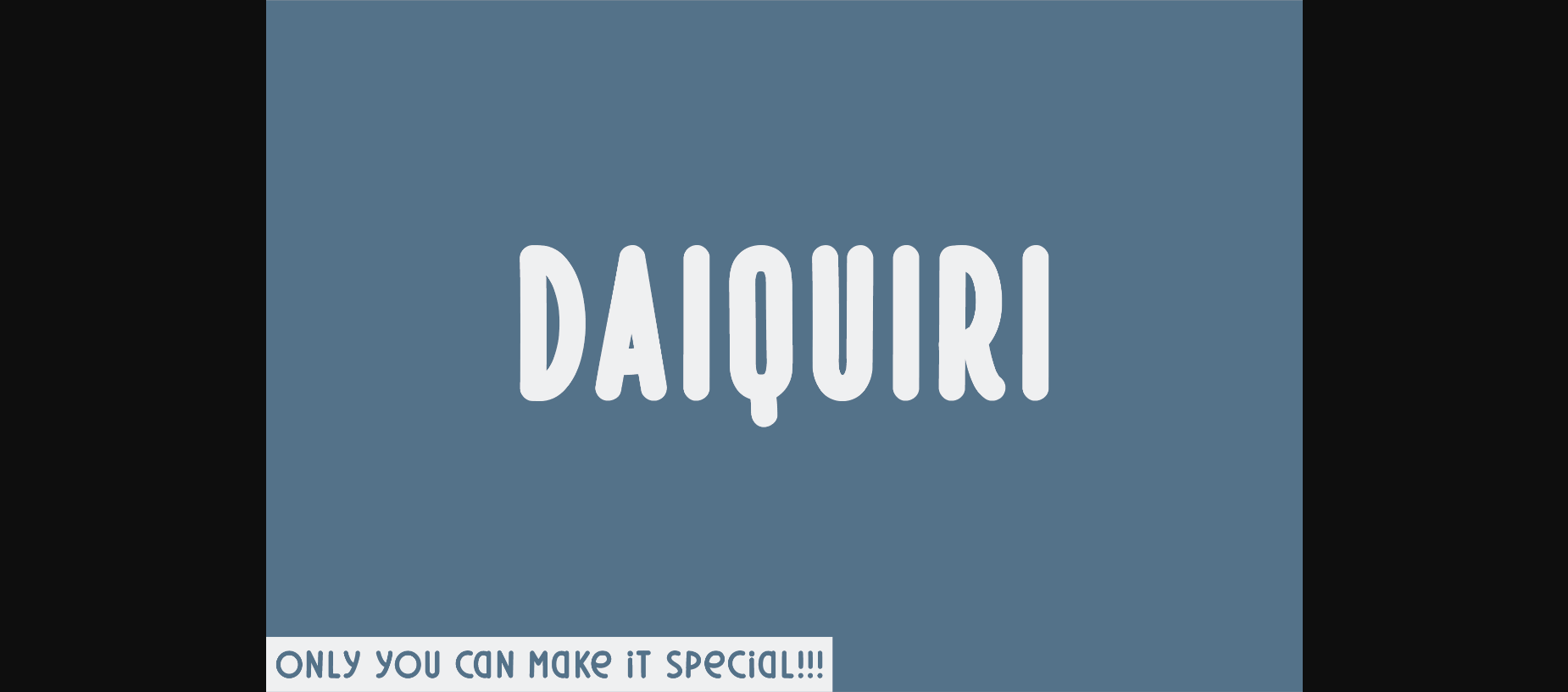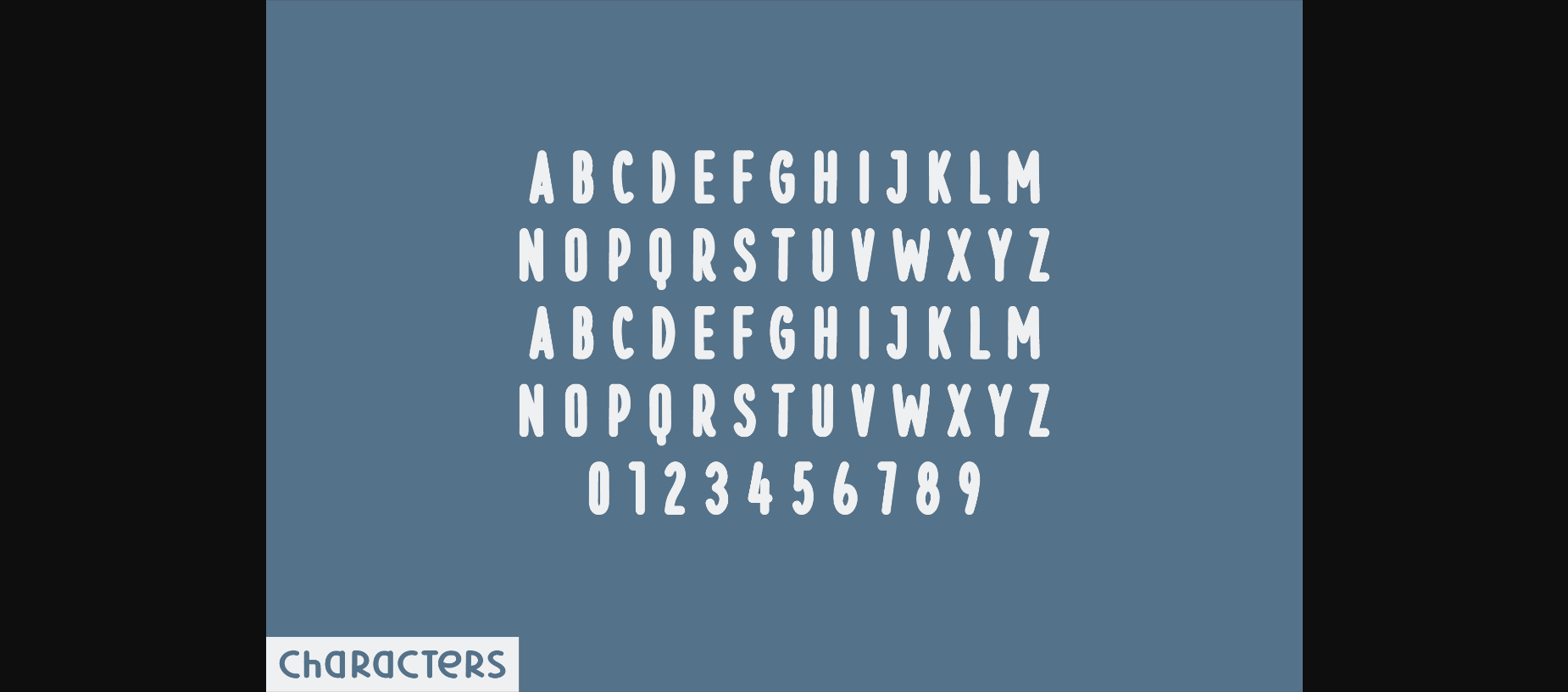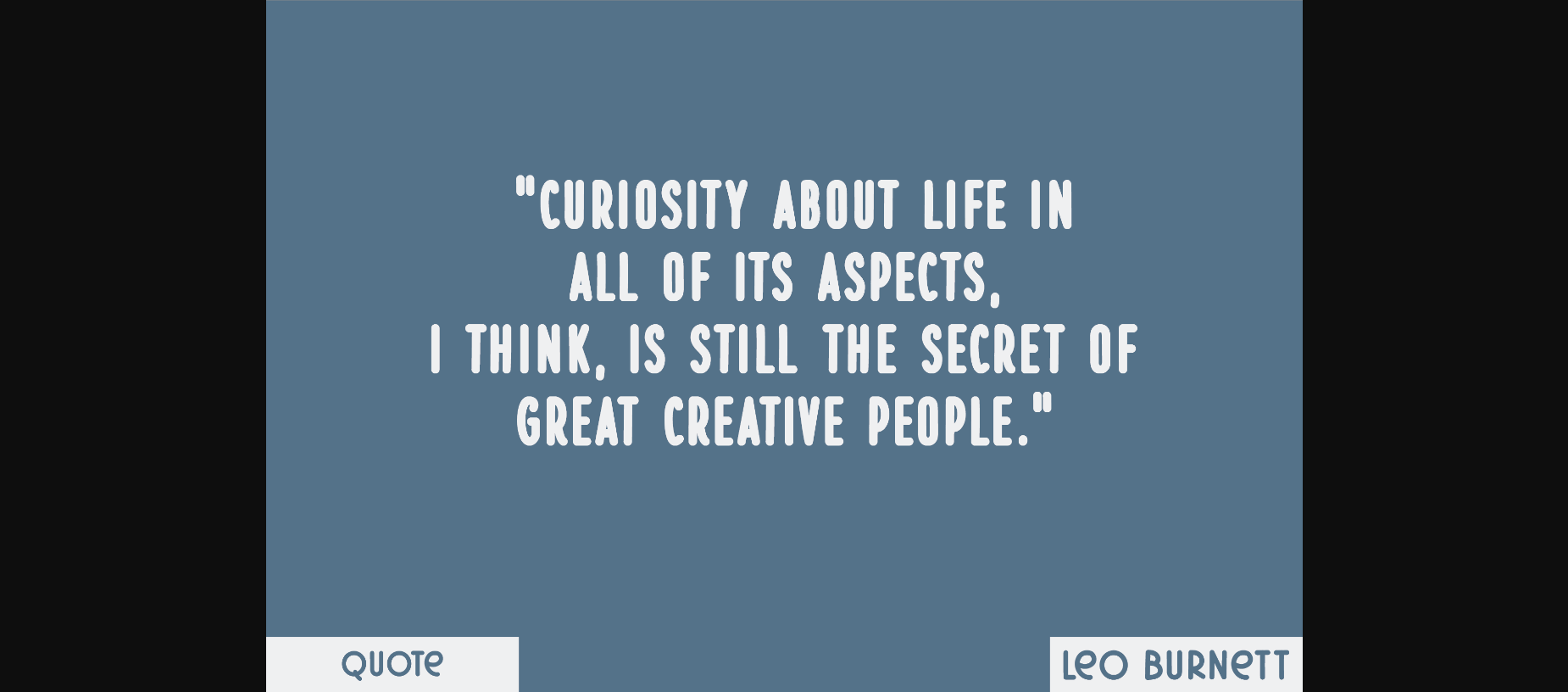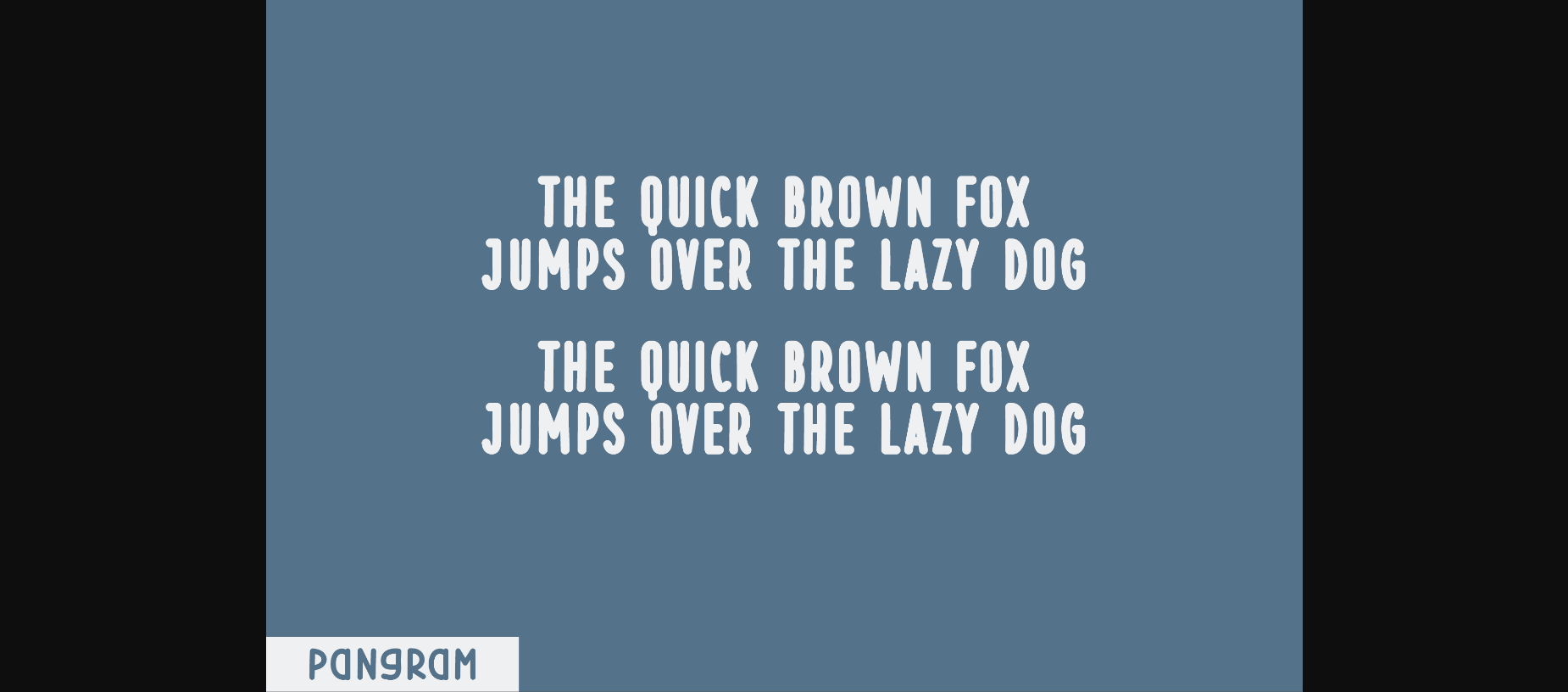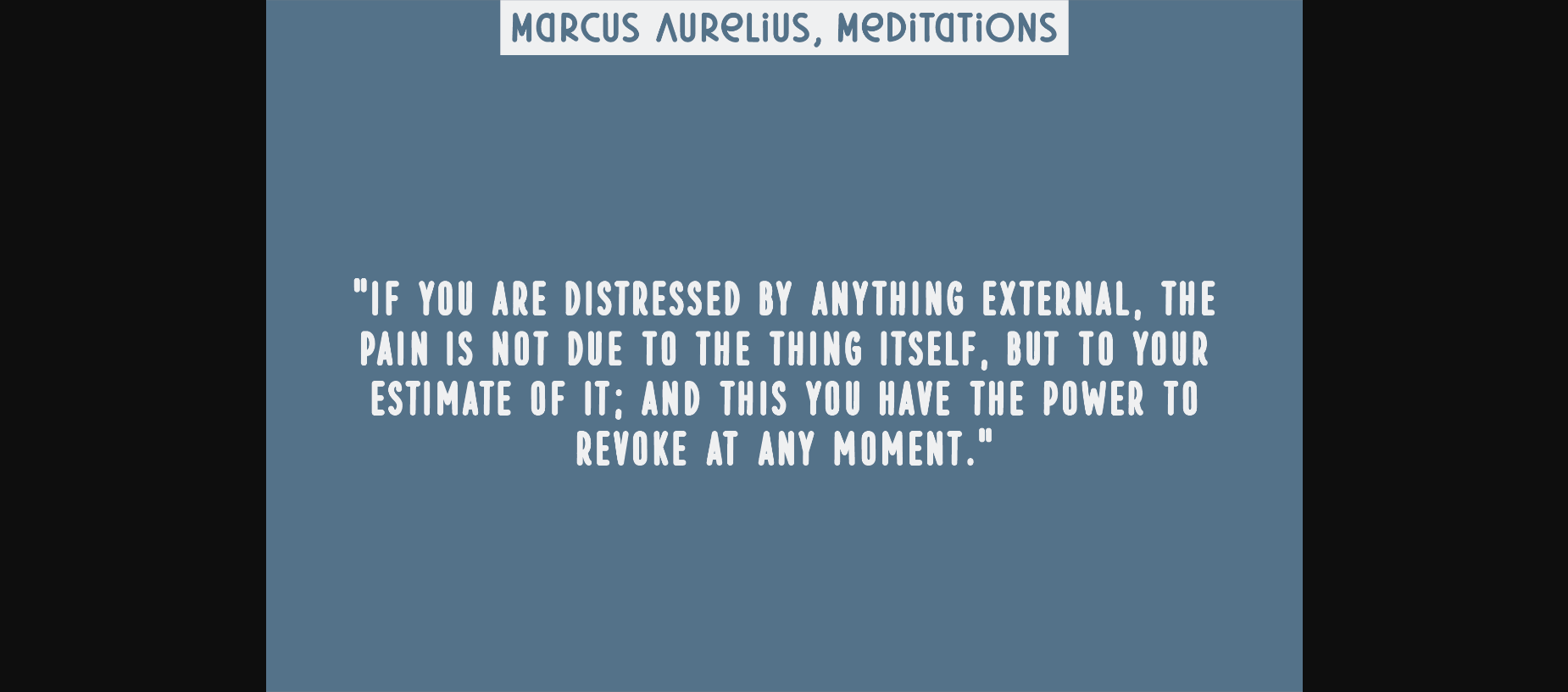
HomeSans Serif FontsDaiquiri Font Sans Serif Fonts Daiquiri Font FacebookTwitterPinterestWhatsApp 1 of 7 ... Daiquiri Font Poster 2... Daiquiri Font Poster 3... Daiquiri Font Poster 4... Daiquiri Font Poster 5... Daiquiri Font Poster 6... Daiquiri Font Poster 7... About Daiquiri Font Daiquiri is a natural sans serif font created without changing a single node in each character’s indentation – this makes this font very interesting and unique. Perfect for quotes, notes, tees, and any product design. DOWNLOAD NOW 240 0 People also explored Pretty Girl Font Beautiful Natalie Font Venetian Simply Wall | Poster Mockup Haru February Notes Argento Font Staroff Font South Toronto Font Fetwalkers Font Batoshi Font Mishka Ornaments Sticky Font TagsDaiquiri Font Previous articleChickpea FontNext articleBoatshi Font LEAVE A REPLY Cancel reply Comment: Please enter your comment! Name:* Please enter your name here Email:* You have entered an incorrect email address! Please enter your email address here Website: Save my name, email, and website in this browser for the next time I comment. Unlock Endless Creativity with the FREE September Clipart Huge Bundle (Valued at $700!) Personal Use Free Equestrain Personal Use Free Read more Comic Caps Personal Use Free Read more Happy Santa Personal Use Free Read more Adriator Personal Use Free Read more BLOG Using Fonts in Digital Marketing: Tips to Strengthen Your Brand Identity In the realm of digital marketing, every visual element plays a crucial role in shaping a brand's identity, and fonts are no exception. The... Transform Your Website: Elevate Your Typography with 7 Best Web Font Generators Top 7 Google Fonts Alternatives for Faster and Privacy-Friendly Web Design (2025) Free Fonts Risk: Why Free Fonts Can Be Dangerous for Designers